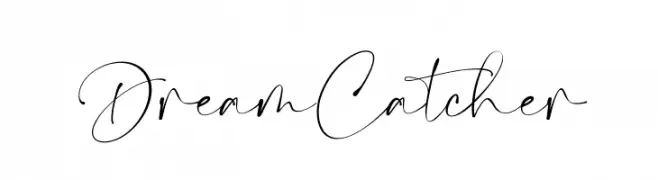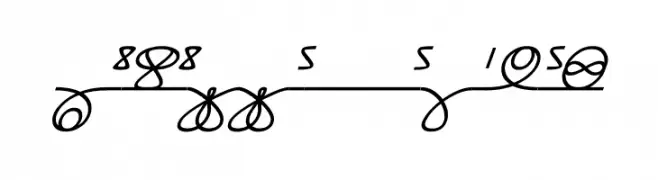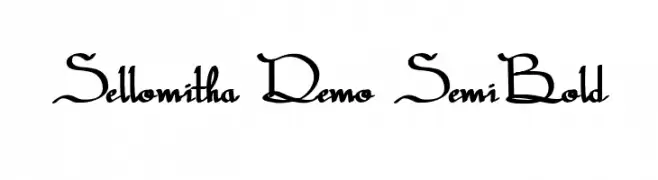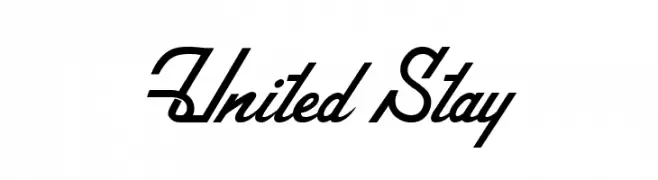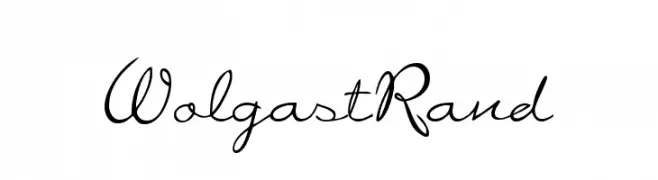
A graceful script font with fluid, cursive strokes and elegant loops.
An elegant, flowing script font with intricate loops and swashes.
A whimsical and artistic script font with flowing loops and curves.
An elegant, flowing script font with ornate loops and flourishes.
A bold, decorative font with intricate loops and curves, perfect for artistic projects.
A cursive, italic font with elegant loops and a handwritten style.
An intricate, decorative script font with elaborate loops and swirls.
A fluid, elegant handwritten script with artistic loops and swirls.
A cursive, flowing font with elegant loops and swashes.
A decorative, semi-bold cursive font with elegant loops and swirls.